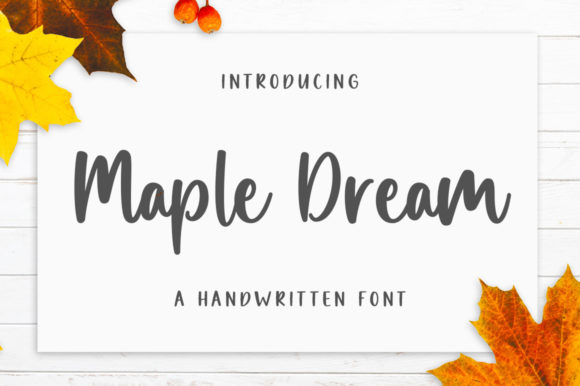
Venture into a world of enchantment with Maple Dream, an extraordinary script font that captivates hearts with its exquisite charm and timeless elegance. Crafted with the utmost care by Graphix Line Studio, Maple Dream stands apart as a masterpiece of digital artistry.
Embark on a creative journey with Maple Dream, a font designed to evoke emotions and captivate audiences. Let your words dance across the page with grace and fluidity, leaving an indelible mark on the hearts of your readers. With Maple Dream, every design becomes a cherished heirloom, a testament to the power of beauty and elegance.
Immerse yourself in the allure of Maple Dream, a font that transcends the ordinary and elevates your designs to new heights of sophistication. Its meticulously crafted curves and delicate flourishes add a touch of whimsy and elegance to any project, transforming the mundane into the extraordinary.
Whether you're crafting a heartfelt wedding invitation, expressing gratitude with a handwritten note, or creating eye-catching logos and business cards, Maple Dream is the perfect companion. Its versatility knows no bounds, adapting seamlessly to a myriad of design styles and themes.
With Maple Dream, the possibilities are endless. Embrace the magic of this enchanting script font and watch as your creative visions come to life. Let your imagination soar as you explore new horizons of design, leaving a trail of beauty and inspiration in your wake.
Don't just settle for any font; choose Maple Dream, the font that ignites passion and captivates hearts. Let your designs blossom with elegance and grace, and experience the transformative power of truly exceptional typography.